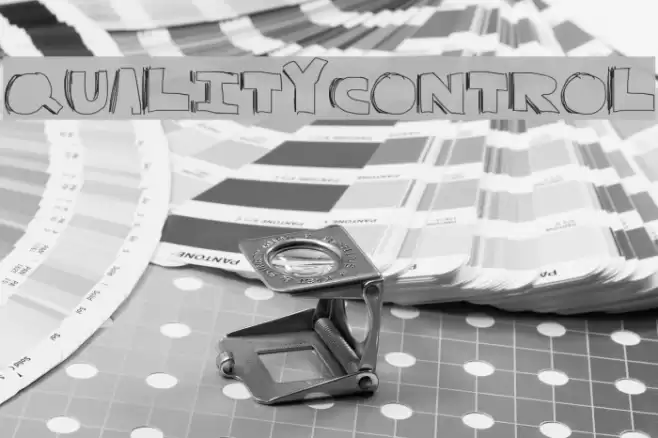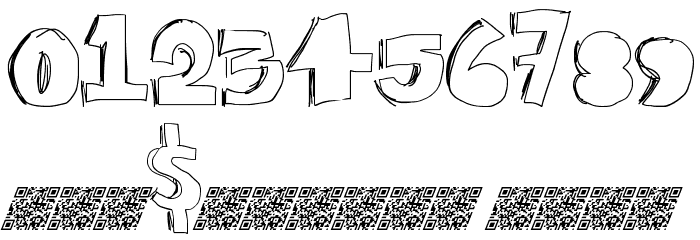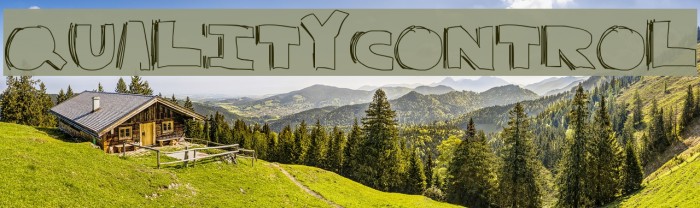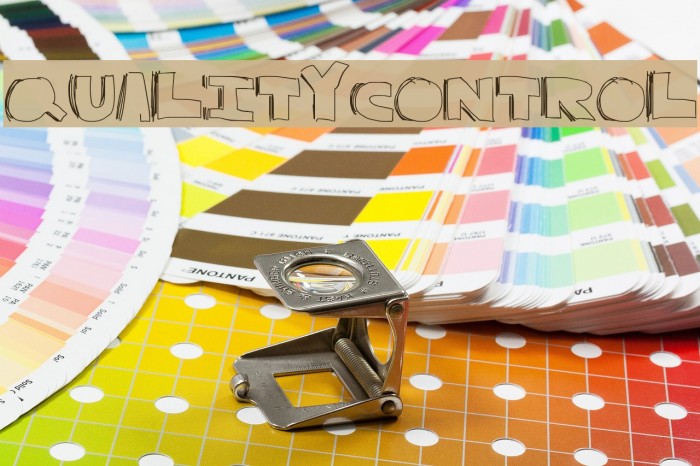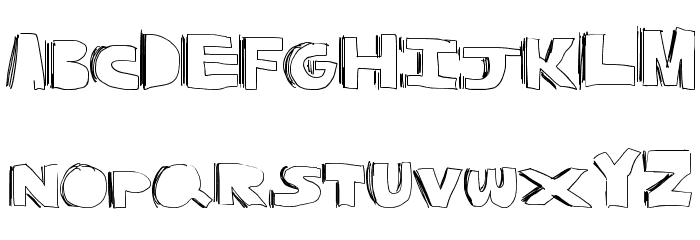
QualityControl Font
QualityControl Description
This font features a playful and dynamic style, characterized by its bold, three-dimensional appearance. Each character appears to be hand-drawn with a sketch-like quality, giving it a lively and energetic feel. The letters have a consistent thickness, with exaggerated serifs and strokes that create a sense of movement and depth. The numbers and special characters maintain this whimsical style, making the font suitable for creative and informal applications. Its unique design makes it stand out, ensuring that any text set in this font will capture attention and convey a sense of fun and creativity.
A bold, sketch-like font with a playful, three-dimensional style from Cartoon fonts.
- Proposed Projects: Ideal for comic books, children's books, playful branding, and creative posters.
- Overall Style: Playful, Creative, Dynamic